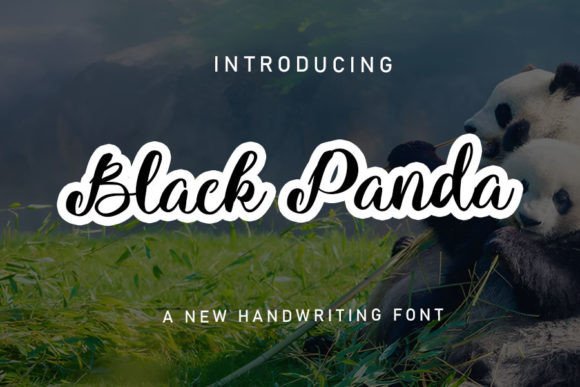
The Ultimate Guide to Black Panda Font: A Relaxed and Laid-Back Handwritten Font
An Honest Review of Black Panda Font
So, what makes Black Panda so special? Let’s take a closer look.
What I Love About Black Panda Font
- ✨ Relaxed and laid-back vibe: Black Panda has a unique, casual feel that’s perfect for designs that need a friendly touch.
- ✅ Highly versatile: Whether you’re working on a branding project, a social media graphic, or a craft project, Black Panda adapts beautifully.
- 💫 Elegant yet approachable: The font strikes a great balance between sophistication and approachability, making it suitable for a wide range of applications.
While Black Panda is an excellent font, there are a few minor quirks to be aware of:
- 🤔 Limited use in very formal contexts: Due to its casual nature, Black Panda might not be the best choice for very formal or traditional designs.
- ⚠️ Some letters may appear a bit narrow: In certain words or phrases, you might notice that some letters appear a bit narrow, which can affect the overall flow of the text.
The Backstory of Black Panda Font
The story behind Black Panda font is one of creative inspiration. The designer, fueled by a passion for handwritten typography, aimed to create a font that captures the essence of a relaxed, laid-back vibe. Drawing inspiration from everyday conversations and the casual flow of handwritten notes, Black Panda was born. The result is a font that’s both elegant and approachable, perfect for adding a personal touch to your designs.
Q: Is Black Panda suitable for body text?
A: While Black Panda is primarily designed for headlines and short texts, it can be used for body text in certain contexts. However, its casual nature might make it less suitable for very long passages of text.
Q: Does Black Panda support OpenType features?
A: Yes, Black Panda supports OpenType features, including stylistic alternates and glyphs. This allows for greater flexibility and creativity in your designs.